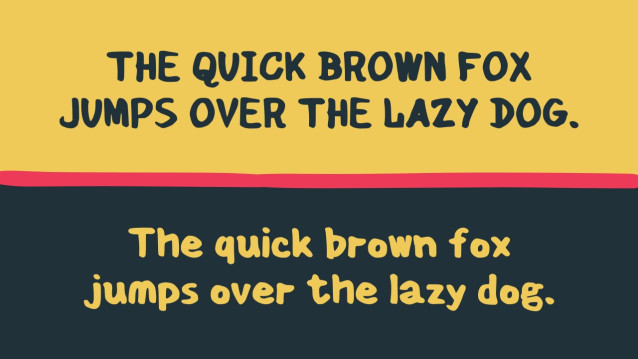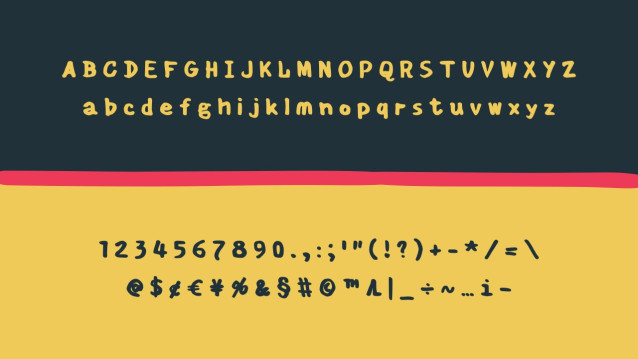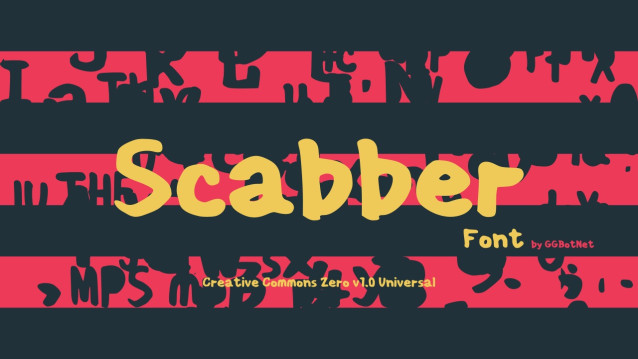
Scabber Font
Scabber Font is a chunky, comic, and cartoon display font. With its neat and joyful personality, this font will enhance any project you wish to create!